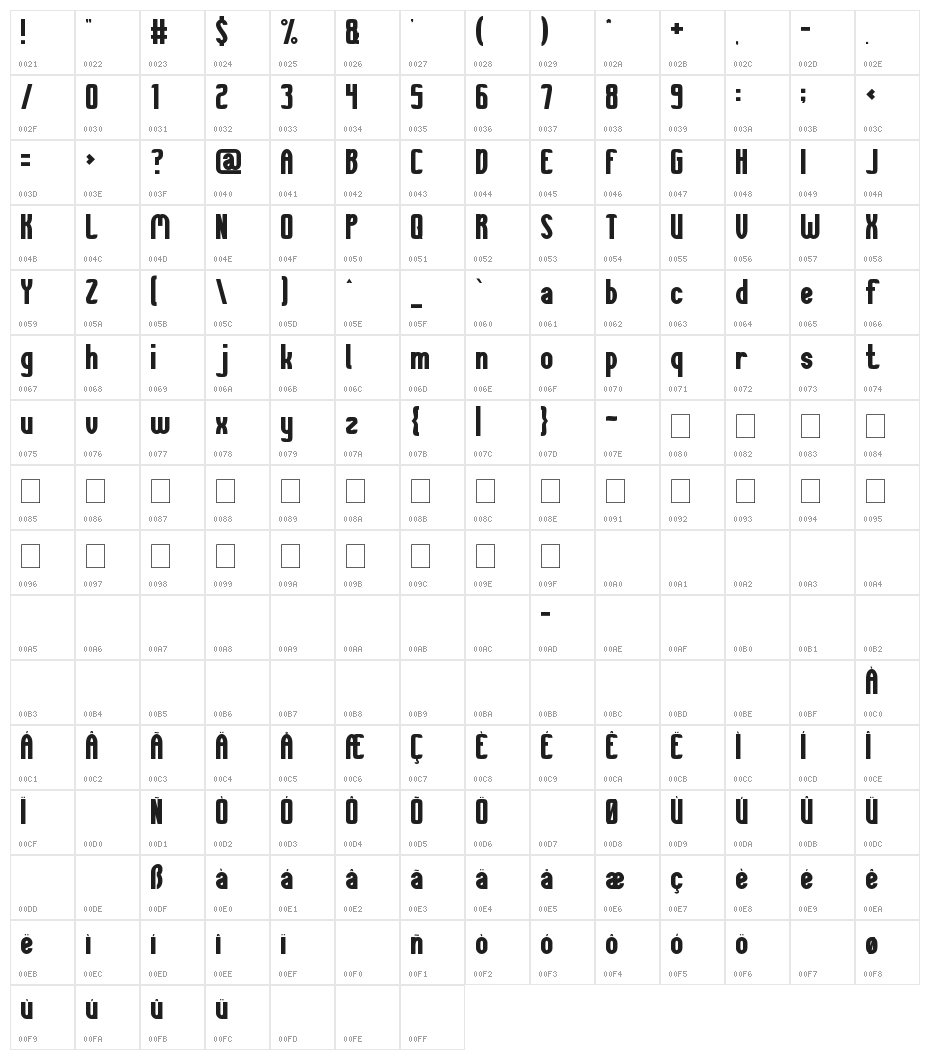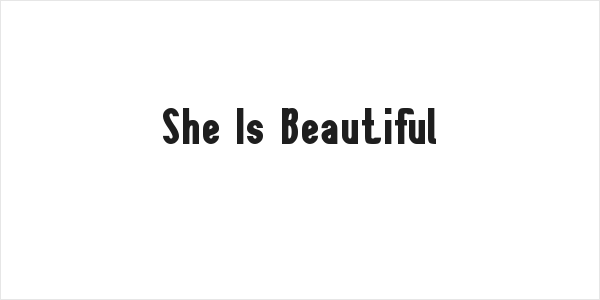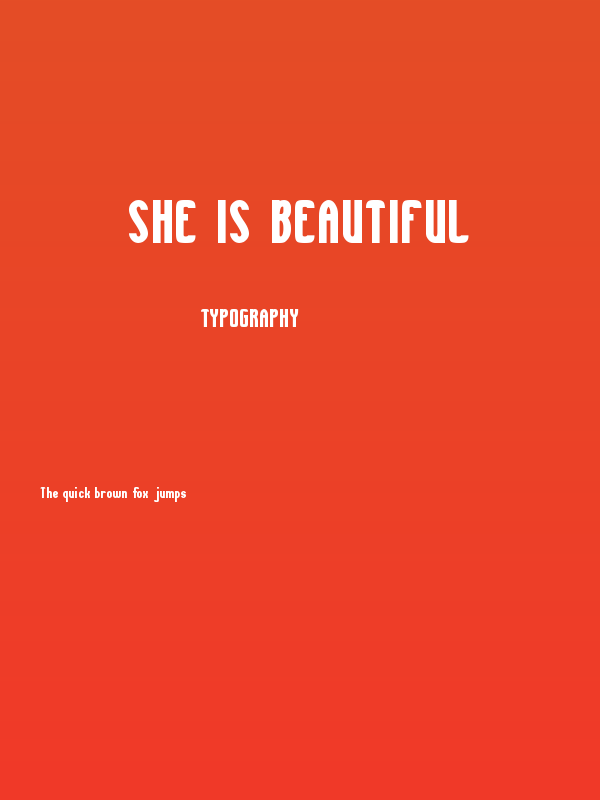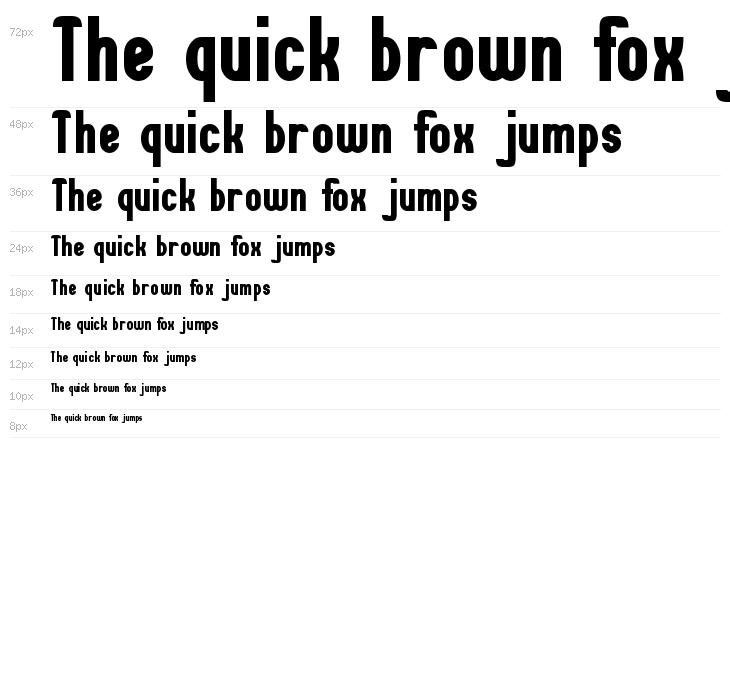
She Is Beautiful Font
She Is Beautiful Description
This font features a bold and impactful design with a modern flair. The characters are thick and rounded, providing a strong presence on the page. The uppercase letters are uniform in height, while the lowercase letters maintain a consistent style that complements the uppercase. The numbers are equally bold, ensuring they stand out in any context. Special characters are designed with the same boldness, making them suitable for attention-grabbing text. The overall style is clean and contemporary, making it ideal for projects that require a strong visual impact.
Proposed ProjectsIdeal for posters, headlines, branding, and advertising materials.